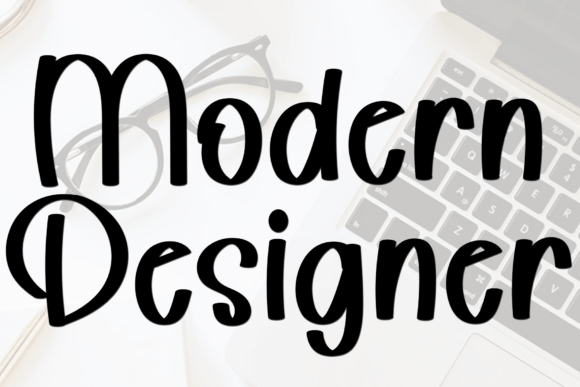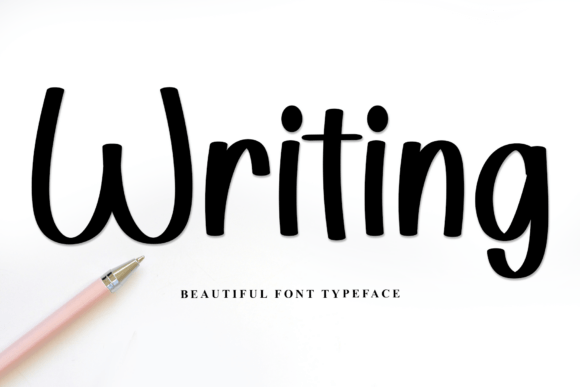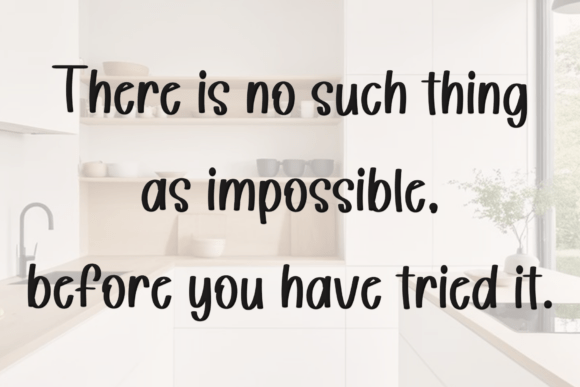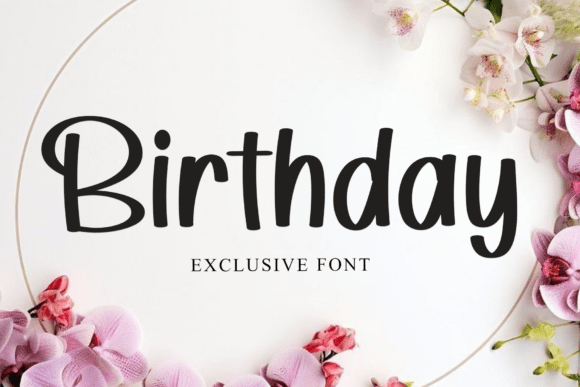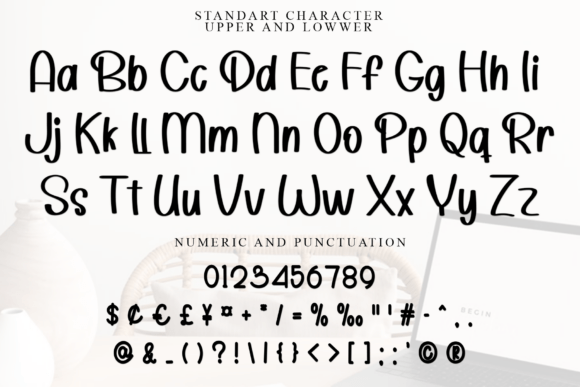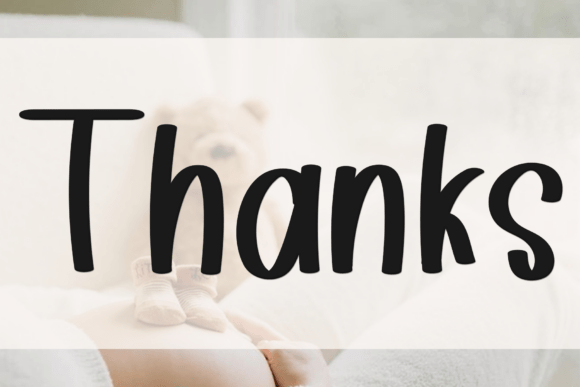
Babyboy Font: The Perfect Holiday Typeface for Your Designs
The holiday season is upon us, and what better way to get into the spirit than with a festive and merry typeface? Look no further than the Babyboy Font, a decorative and whimsical font that’s perfect for adding a touch of enchantment to your designs. In this article, we’ll dive into the world of Babyboy Font and explore its features, uses, and benefits for designers and crafters.
Babyboy Font is a holiday-themed typeface that’s designed to capture the magic and wonder of the season. With its decorative elements and whimsical flair, it’s the perfect addition to any design project that requires a touch of festive cheer. Whether you’re creating greeting cards, gift tags, or holiday-themed projects, Babyboy Font is sure to bring a smile to your face and a twinkle to your designs.
Perfect for Holiday Designs
Babyboy Font is specifically designed with the holiday season in mind. Its playful and cheerful design makes it perfect for a wide range of holiday-themed projects, including:
• Greeting cards: Create festive and personalized greeting cards for friends and family with Babyboy Font.
• Gift tags: Add a touch of whimsy and charm to your gift tags with this delightful font.
• Holiday-themed projects: From invitations to party decorations, Babyboy Font is the perfect choice for any holiday-themed project.
One of the best things about Babyboy Font is that it’s PUA (Private Use Area) encoded, which means you can access all of the amazing glyphs and ligatures with ease. This makes it simple to add decorative elements and special characters to your designs, giving you even more creative freedom and flexibility.
Bringing a Cheerful and Nostalgic Ambiance
Babyboy Font has a way of evoking a sense of nostalgia and cheerfulness, making it perfect for designs that require a touch of warmth and personality. With its playful and whimsical design, it’s sure to bring a smile to your face and a touch of magic to your words.
Babyboy Font offers a range of benefits for designers and crafters, including:
• A unique and festive typeface that’s perfect for holiday-themed designs.
• Easy access to decorative elements and special characters with PUA encoding.
• A playful and whimsical design that’s sure to bring a touch of magic to your words.
• A versatile font that’s perfect for a wide range of design projects.